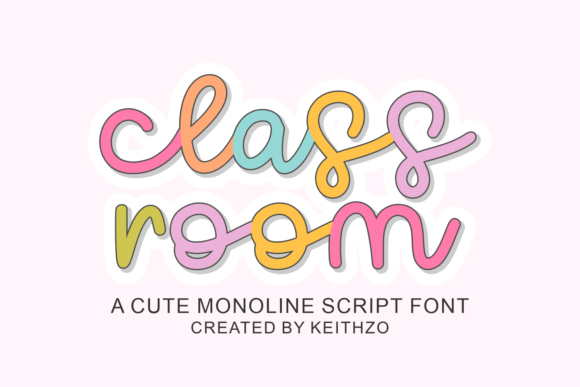
Introducing Classroom Font: Elevate Your Artistic Ventures with Elegance and Playfulness
In the realm of typography, few fonts manage to strike a balance between creativity and legibility. However, Classroom Font achieves this feat with remarkable finesse. Designed as an elite monoline script typeface, Classroom Font is poised to revolutionize your artistic ventures, whether you’re an educator, designer, or entrepreneur. Its unique blend of seamless, unvarying strokes and a delightful tempo encapsulates the imaginative spirit of youth and the structured allure of contemporary education.
The Distinctive Features of Classroom Font
At the heart of Classroom Font lies its signature “monoline” character. This defining feature maintains a steady stroke thickness, ensuring superlative legibility even in compact scales. This consistency is not just aesthetically pleasing but also highly functional, making it perfect for a wide range of applications. From artisanal classroom adornments to sophisticated boutique wraps, Classroom Font masterfully harmonizes the raw appeal of “hand-drawn” with the refined elegance of “professional polish”.
One of the standout qualities of Classroom Font is its versatility. It’s perfectly suited for various uses, including:
- Educator Assets: Bring a touch of personality and approachability to your teaching materials, presentations, and classroom decorations.
- Clothing: Add a professional yet playful touch to your boutique’s branding, packaging, or promotional materials.
- Children & Infant Brand Imagery: Capture the imagination of your young audience with a font that’s both fun and legible.
- Social Networking: Stand out on social media platforms with eye-catching text that speaks to a younger, more creative audience.
Why Choose Classroom Font?
Choosing Classroom Font for your projects comes with several benefits:
- Unique Aesthetic: Its monoline script offers a fresh alternative to more traditional fonts, setting your work apart.
- Legibility: The consistent stroke width ensures that your message is conveyed clearly, regardless of the scale.
- Flexibility: It can be used across a variety of mediums, from digital platforms to print materials.
- Educational Edge: For educators, it adds a modern and engaging touch to learning materials.
Tips for Using Classroom Font Effectively
To maximize the impact of Classroom Font, consider the following tips:
- Pair with Contrasting Fonts: Combine Classroom Font with simpler fonts for a balanced and visually appealing layout.
- Experiment with Colors: Take advantage of the font’s versatility by experimenting with different colors and gradients.
- Play with Sizes: Use the font at various sizes to create visual hierarchy and emphasize key points.
- Emphasize Creativity: Don’t be afraid to get creative with your designs. Classroom Font is designed to inspire artistic ventures.
Classroom Font is more than just a typeface; it’s a tool for creative expression and professional communication. Its unique monoline script, combined with its legibility and versatility, makes it an invaluable asset for educators, designers, and entrepreneurs. Whether you’re looking to elevate your educational materials, create captivating brand imagery, or simply add a touch of elegance to your projects, Classroom Font is the perfect choice. Step up your artistic ventures with Classroom Font and discover a world where creativity meets clarity.